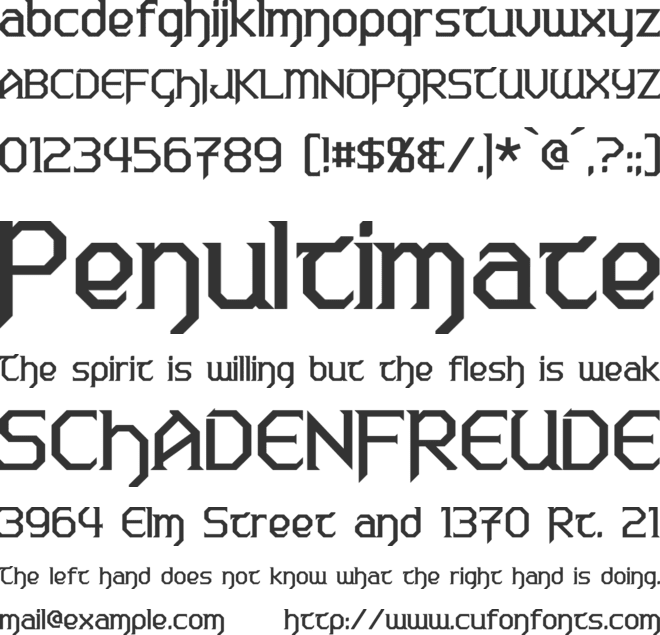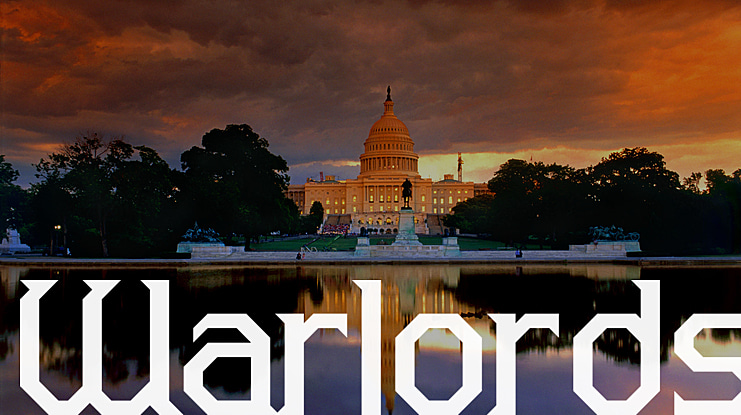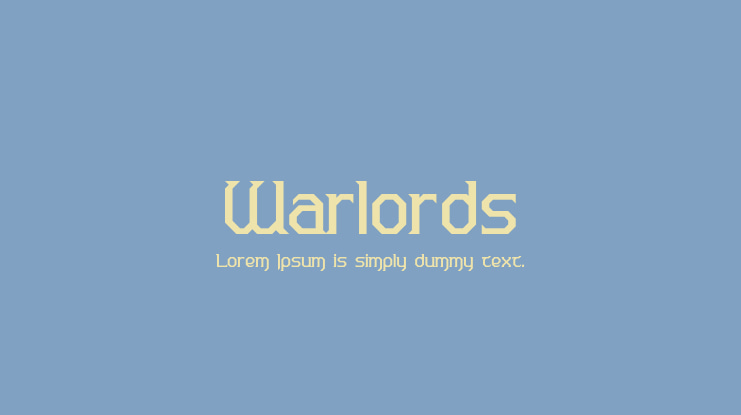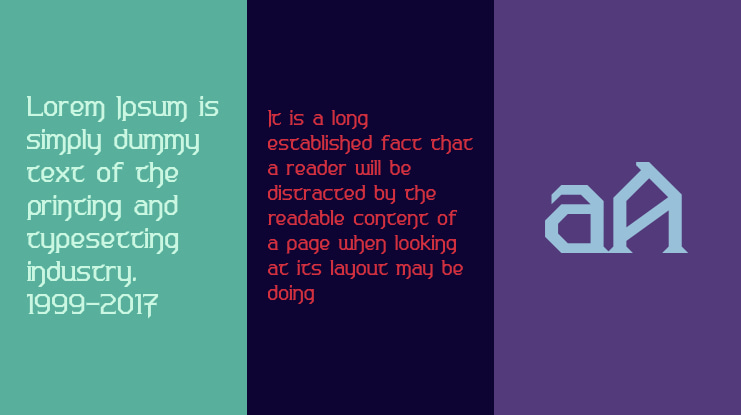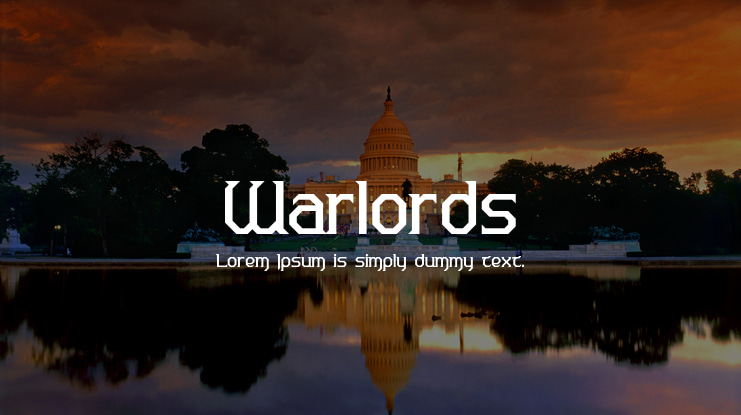
Warlords Font Family
Neale Davidson
Warlords is based heavily on the title logo for SSG’s legendary Warlords III computer game. This face is meant to evoke a medieval, gothic look, with sharp edges and diagonals. Includes full alphabet, extended punctuation, euro. Includes regular bold, italic, and bold-italic faces.